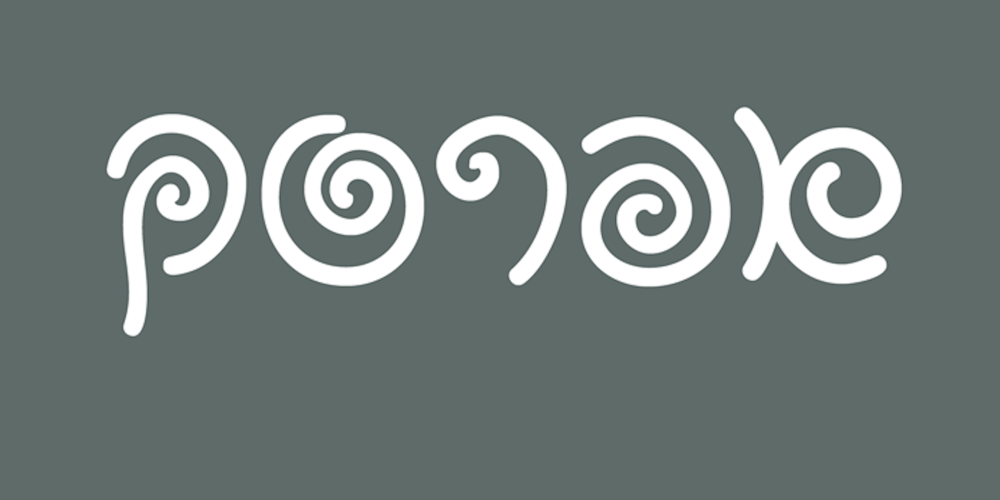
Spirala MF
Spirala MF font
Spirala MF Font Family was designed by Omer Peleg and published by Masterfont. Spirala MF contains 1 styles and family package options. So elegant yet so childish, makes this font a perfect choice for for sweets packaging…